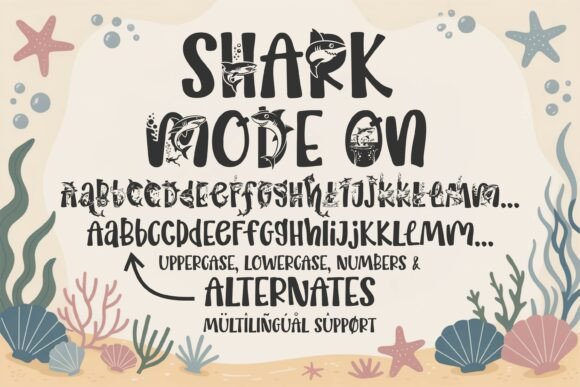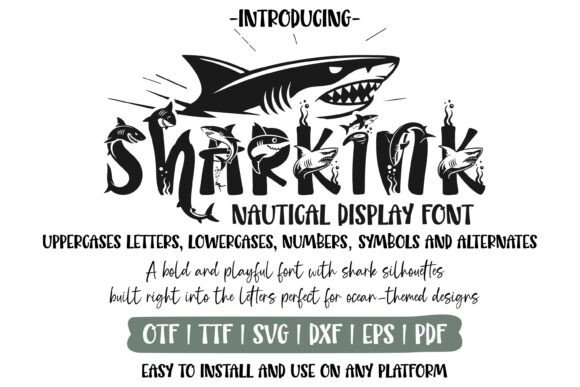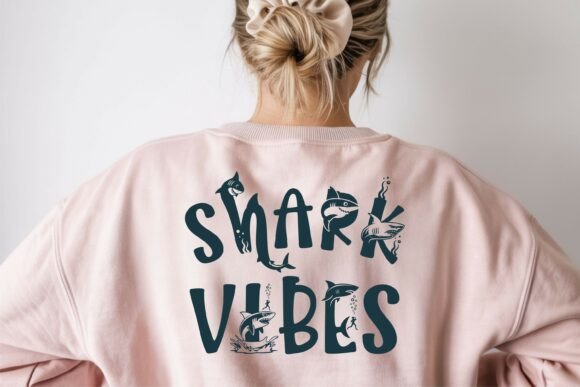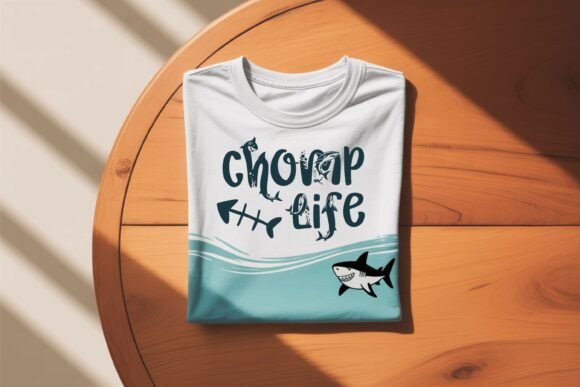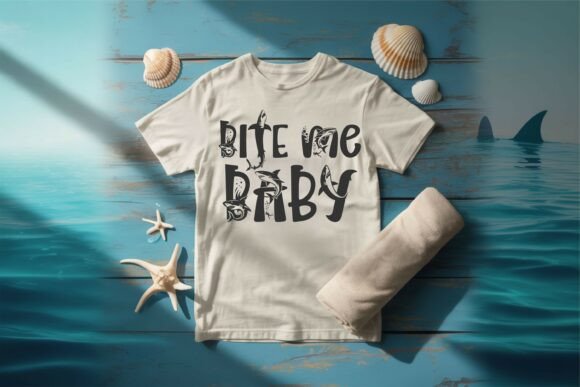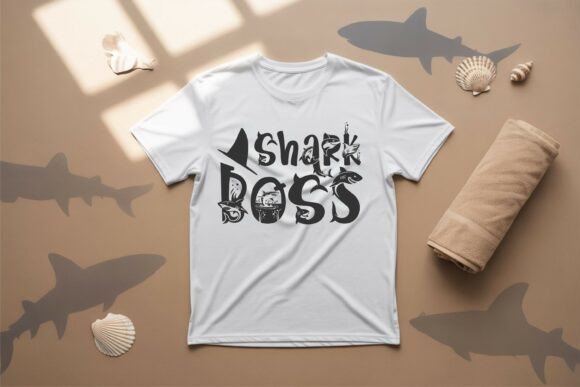
Introduction to Sharkink Font
Unveil an ocean of creativity with SharkInk – a bold, fun-filled, marine-inspired font.
With each letter teeming with playful shark silhouettes, effervescent bubbles, and detailed underwater elements embedded within the letterforms, you invite a wave of aquatic adventure into your designs This typeface drips with child-friendly boldness, making it the ideal pick for little boys’ birthday tees, vacation party invites, or coastal crafts.
Key Features of Sharkink Font
Why Choose Sharkink Font?